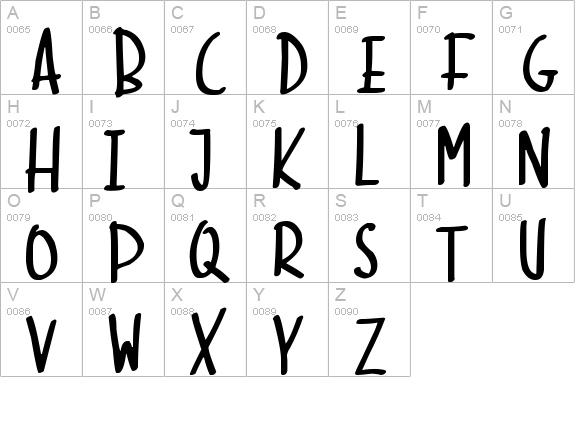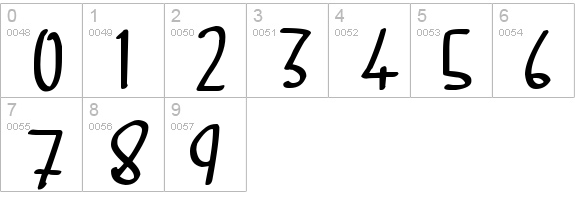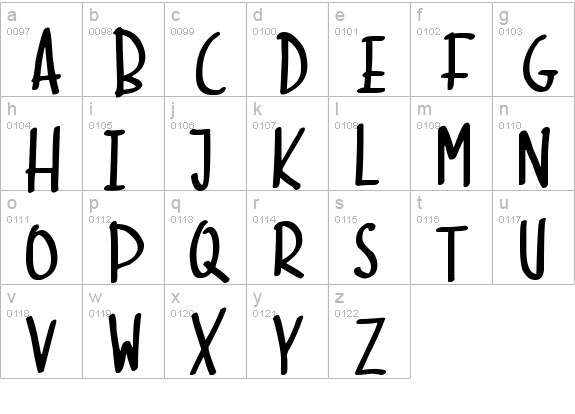
Skinny Marker font is a charming and playful typeface that adds a touch of whimsy to any design project. This font features a thin and delicate marker style, perfect for creating a handwritten look that is both elegant and modern. Its slim and graceful strokes give a sense of lightness and sophistication, making it ideal for various applications such as logos, posters, invitations, and more.